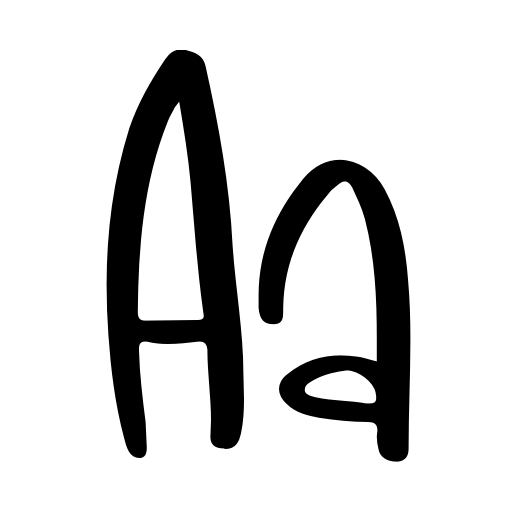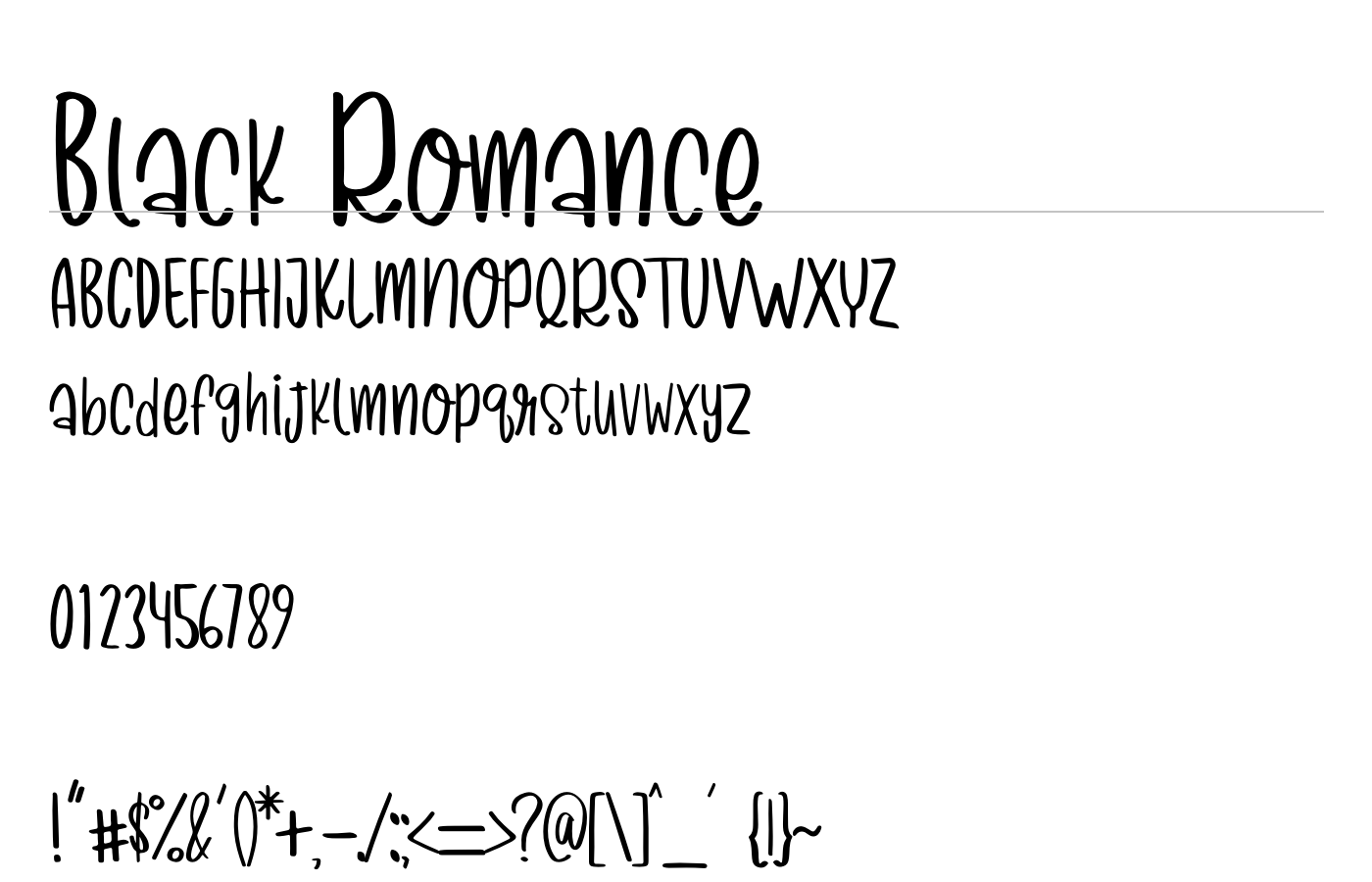
Black Romance is a playful and whimsical handwritten sans serif font with tall, narrow letterforms and a casual, organic feel. Its uneven strokes and quirky character shapes give it a friendly, approachable personality, making it ideal for creative projects, invitations, and branding that seeks a personal, lighthearted touch. This font works best in headlines and display uses where a fun, informal vibe is desired.
Black Romance Font
About Black Romance Font
| Font family | Black Romance Font |
| Designer | Fajar Wicaksono |
| Trademark | Booga Letter |